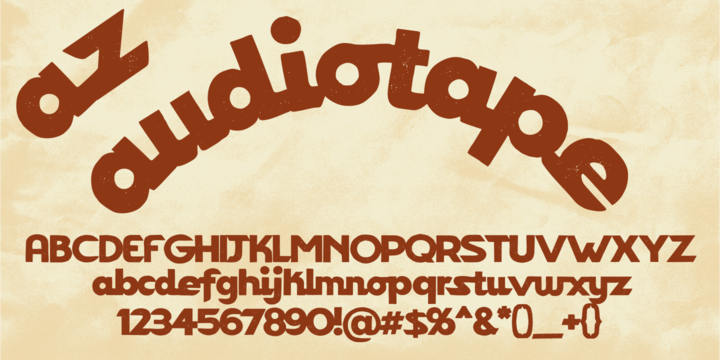
• AZ Audiotape
AZ Audiotape font is inspired from a vintage '70s record sleeve company logo.
This font is designed for use as a worn and antiqued headline or sub-headline.